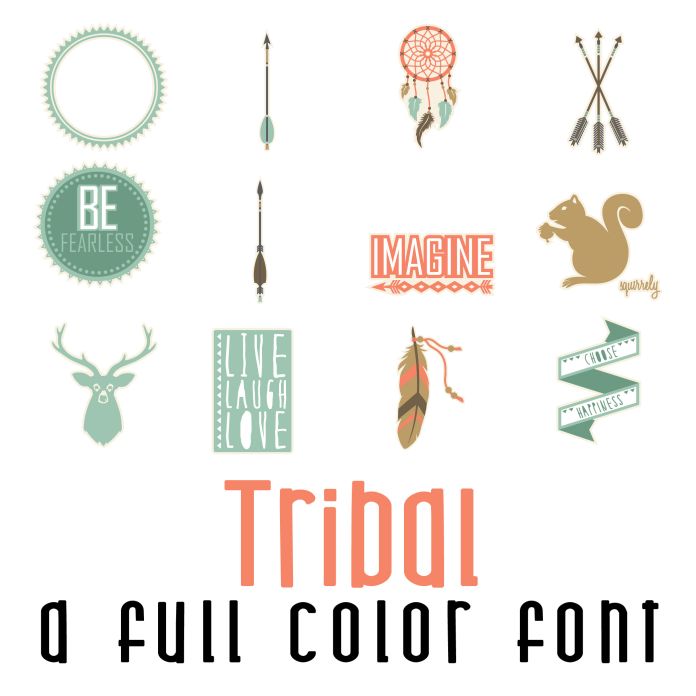
This fun full color font features 36 tribal imagery perfect for cards, crafts, gifts, classrooms, planner stickers, scrapbook pages, decor and more! Glyphs are A-Z and 0-9.